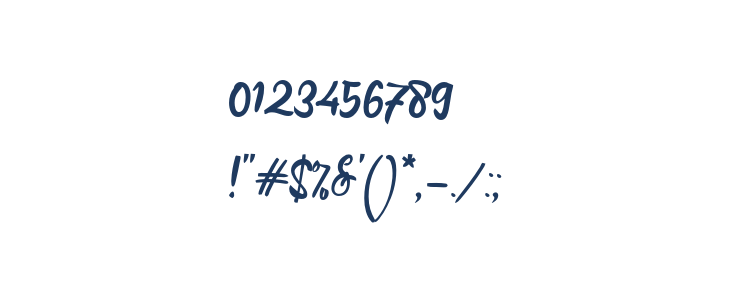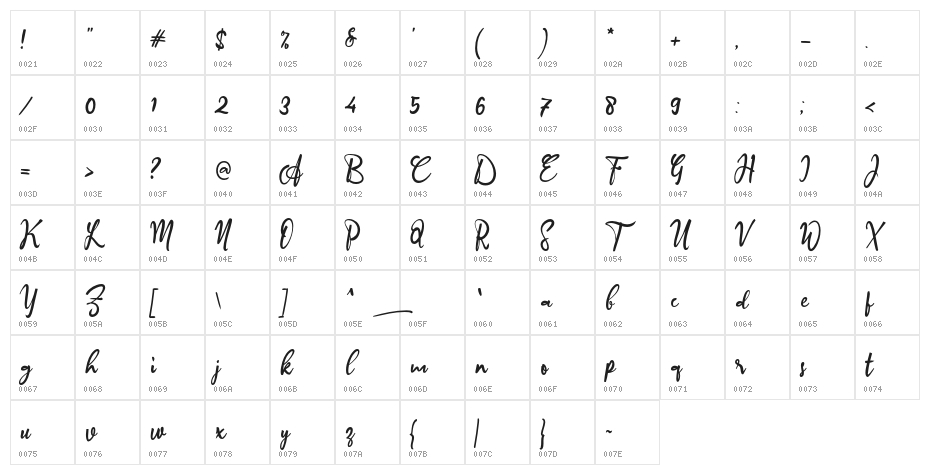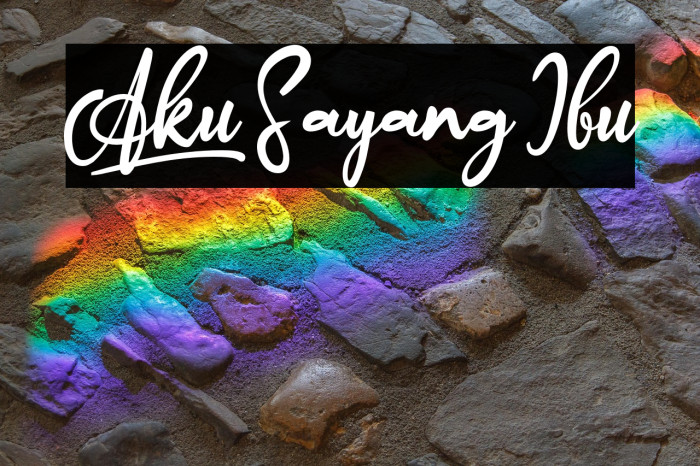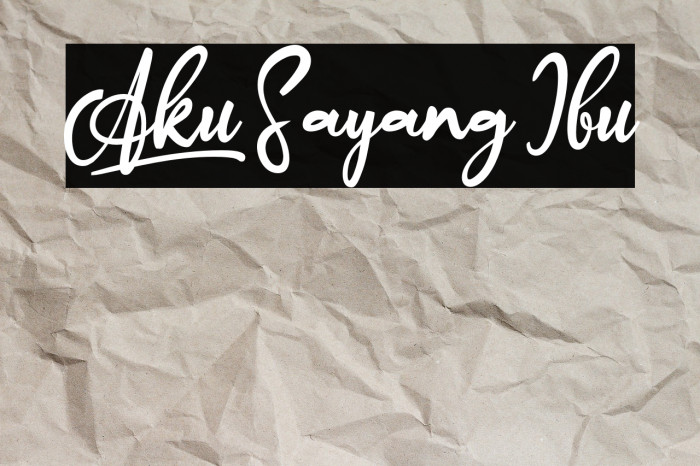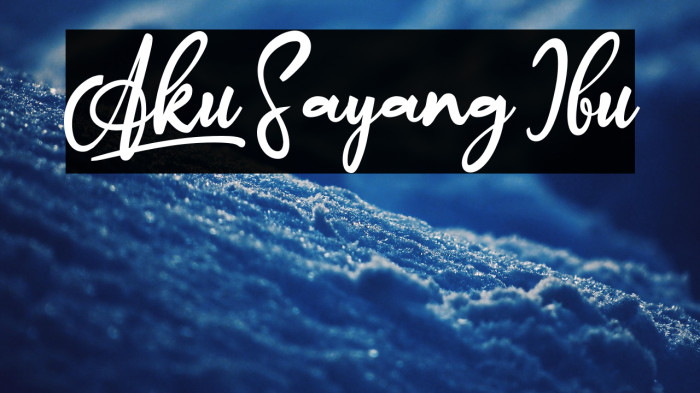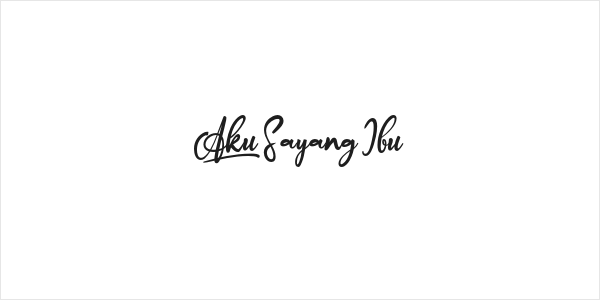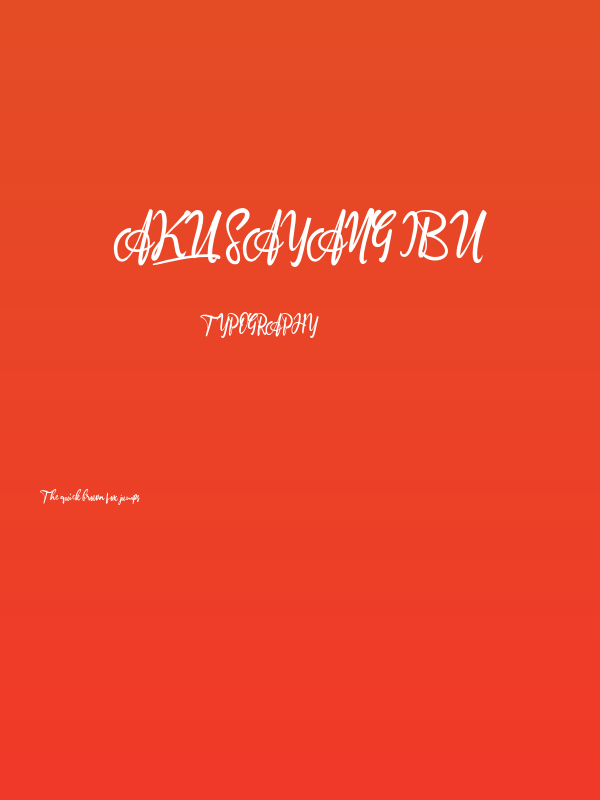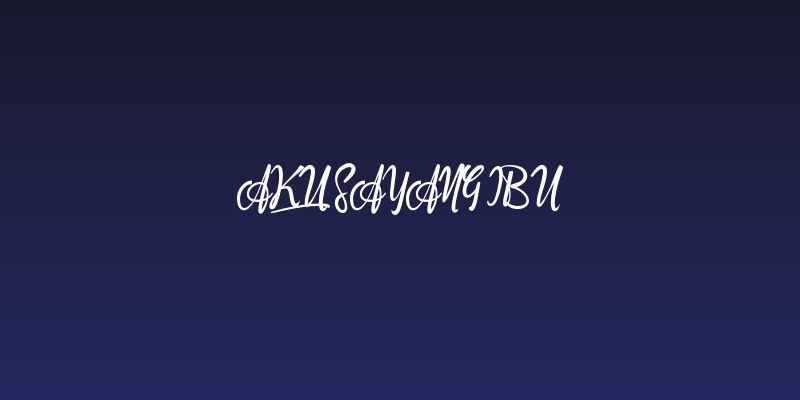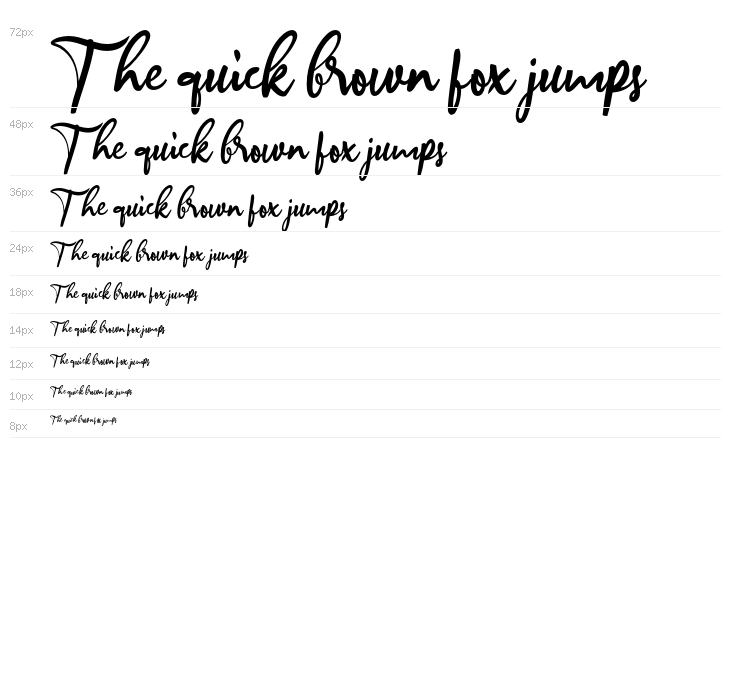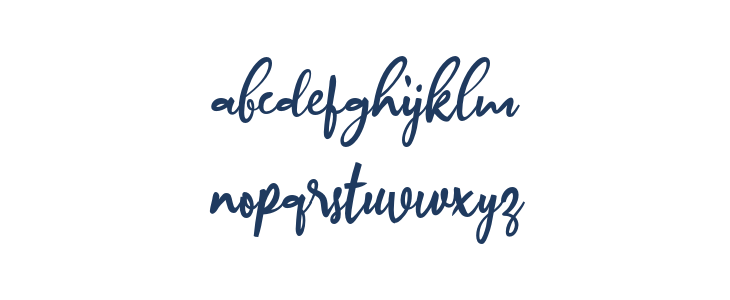
Aku_Sayang Ibu Font
Aku_Sayang Ibu Description
This font exudes a lively and expressive style, characterized by its flowing, cursive script that mimics natural handwriting. The uppercase letters are bold and dynamic, with elegant loops and flourishes that add a touch of sophistication. The lowercase letters maintain a consistent flow, enhancing readability while preserving the font's artistic flair. Numbers and special characters are crafted with the same attention to detail, ensuring a cohesive look across all elements. The overall design is both playful and refined, making it suitable for a variety of creative applications.
Use CaseLogos, Headlines, Invitations
Proposed ProjectsIdeal for wedding invitations, greeting cards, branding projects, and social media graphics.